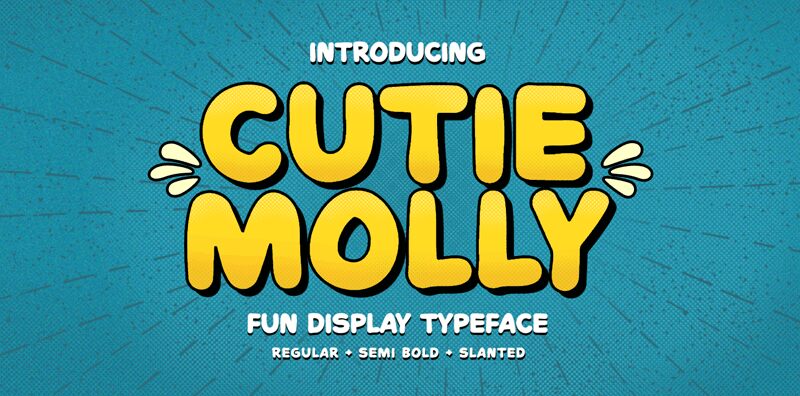
Cutie Molly, created by Letterhend Studio, is a delightful display font with an extra-bold weight.
Perfect for projects that need a touch of whimsy and playfulness, this cartoon-style font adds a fun and energetic vibe to any design. Its boldness ensures that your text will stand out and make a bold statement. Use Cutie Molly for children's books, party invitations, playful logos, or any project that calls for a dose of charm and character.
Let this font bring joy and excitement to your creative endeavors!